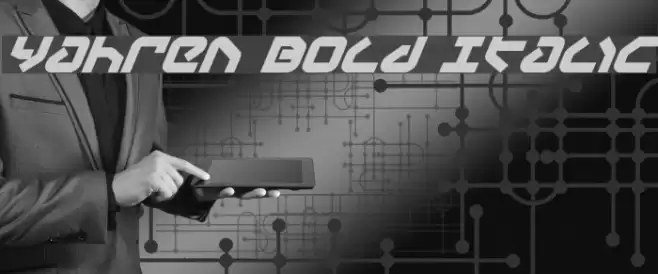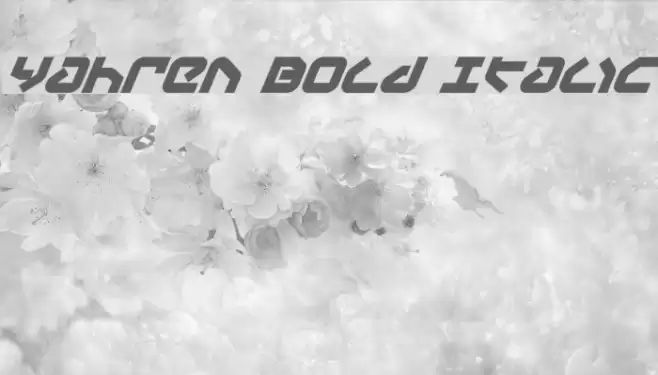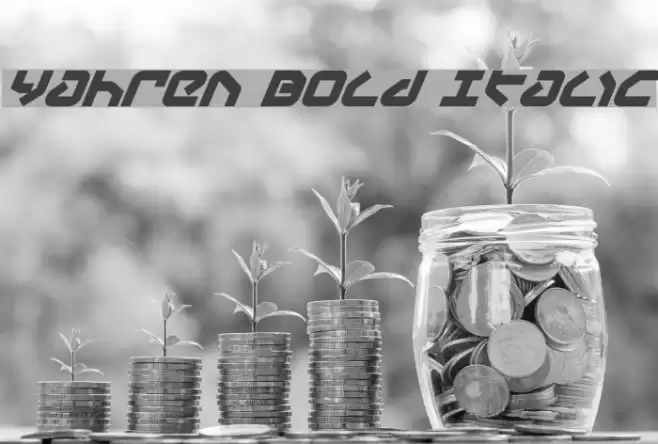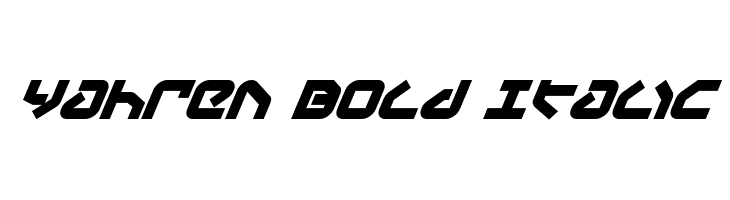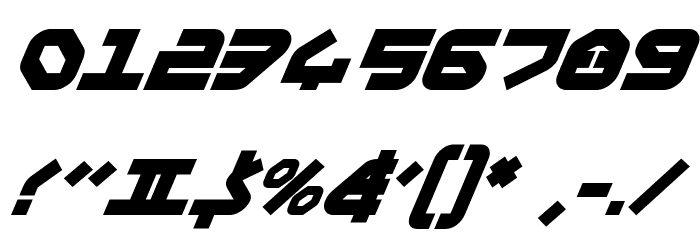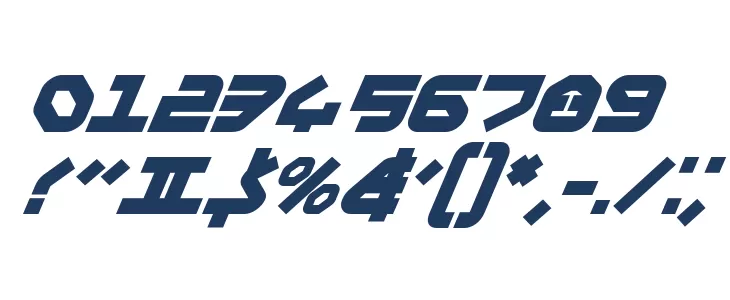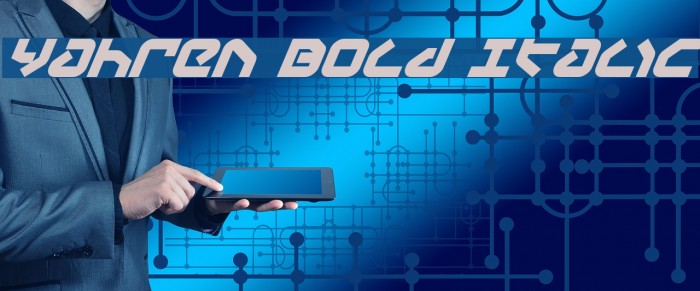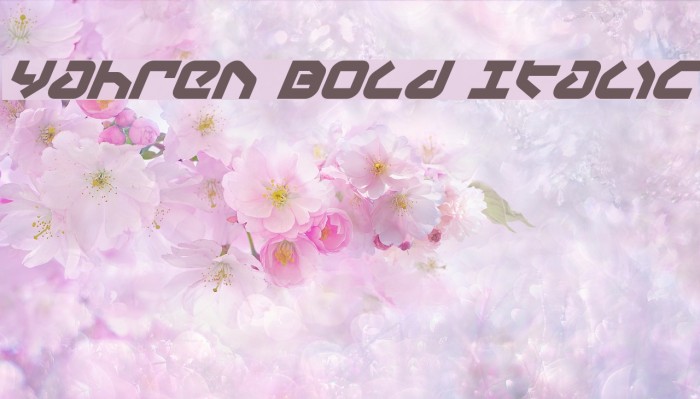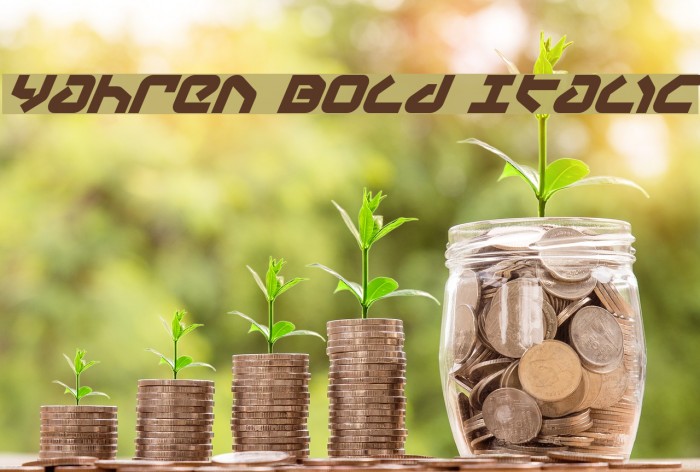
Yahren Bold Italic Font
Yahren Bold Italic Description
This font features a bold and italicized style with a futuristic and angular design. The characters are sharply cut with distinct edges, giving it a dynamic and energetic appearance. The uppercase and lowercase letters maintain a consistent slant, enhancing the italic effect. Numbers and special characters follow the same angular theme, ensuring uniformity across all glyphs. The font's bold weight and unique style make it stand out, suitable for projects that require a modern and edgy look.
A bold, italicized font with a futuristic, angular design from Futuristic fonts.
- Proposed Projects: Ideal for sci-fi themed posters, video game graphics, tech branding, and modern advertisements.